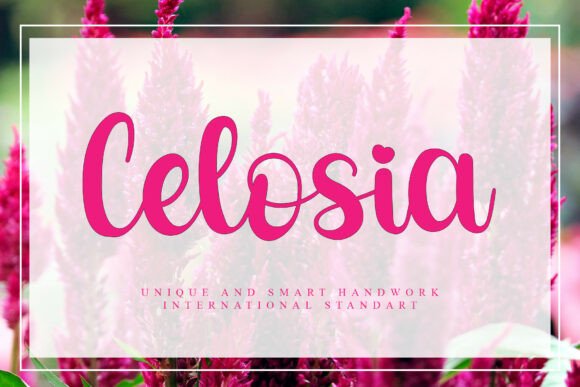
Celosia: A Unique and Elegant Font for Your Projects
Discovering a font that feels both personal and professionally crafted can transform your creative work. Celosia is a unique and elegant typeface designed to bring a distinctive, hand-touched quality to your projects. It's built for creators who value detail and want their designs to stand out with a polished, artistic flair.
What Makes Celosia a Standout Typeface?
Celosia is more than just a collection of letters; it's a carefully crafted design asset. As a premium font, it offers a blend of sophistication and approachability. Its design often leans towards a modern script or a refined serif style, making it incredibly versatile. One of its key strengths is accessibility—this creative font comes with a full set of glyphs, ready to use in any compatible software without needing extra applications. This seamless integration makes it a practical choice for both beginners and seasoned designers.
Ideal Projects for This Creative Font
The true value of a typeface like Celosia lies in its application. It shines in projects where personality and elegance are paramount. Consider using it for:
- Brand Identity and Logo Design: The unique character shapes can help craft a memorable logo and establish a distinct brand voice.
- Invitations and Stationery: From wedding invitations to birthday cards and party announcements, its handwritten font quality adds a personal, celebratory touch.
- Packaging and Editorial Design: Elevate product labels, book covers, or magazine layouts with its sophisticated style, making content feel more premium.
- Digital Content: Enhance social media graphics, website banners, or poster designs to capture attention and communicate elegance.
Its adaptability also makes it suitable for school assignments, special event programs, or any creative idea that benefits from a polished typographic element.
Tips for Choosing and Using Celosia
To get the most out of this font, a little planning goes a long way. First, always check readability at the size you intend to use it, especially for longer passages of text. Its detailed design is perfect for headlines but might be best paired with a simpler sans serif font for body copy. Experiment with font pairing to create visual hierarchy and contrast.
Next, ensure the mood of Celosia aligns with your project's theme. Its elegant nature suits romantic, celebratory, or upscale concepts beautifully. Before finalizing your design, review all the available styles and weights within the font family to explore its full potential. Finally, always confirm the license of your font download supports your intended use, whether for personal projects or commercial client work.
The right typeface does more than display words; it conveys emotion, builds recognition, and ensures visual consistency. By integrating a well-designed font like Celosia into your toolkit, you invest in the professional presentation of your work, helping your creative ideas look and feel their absolute best.